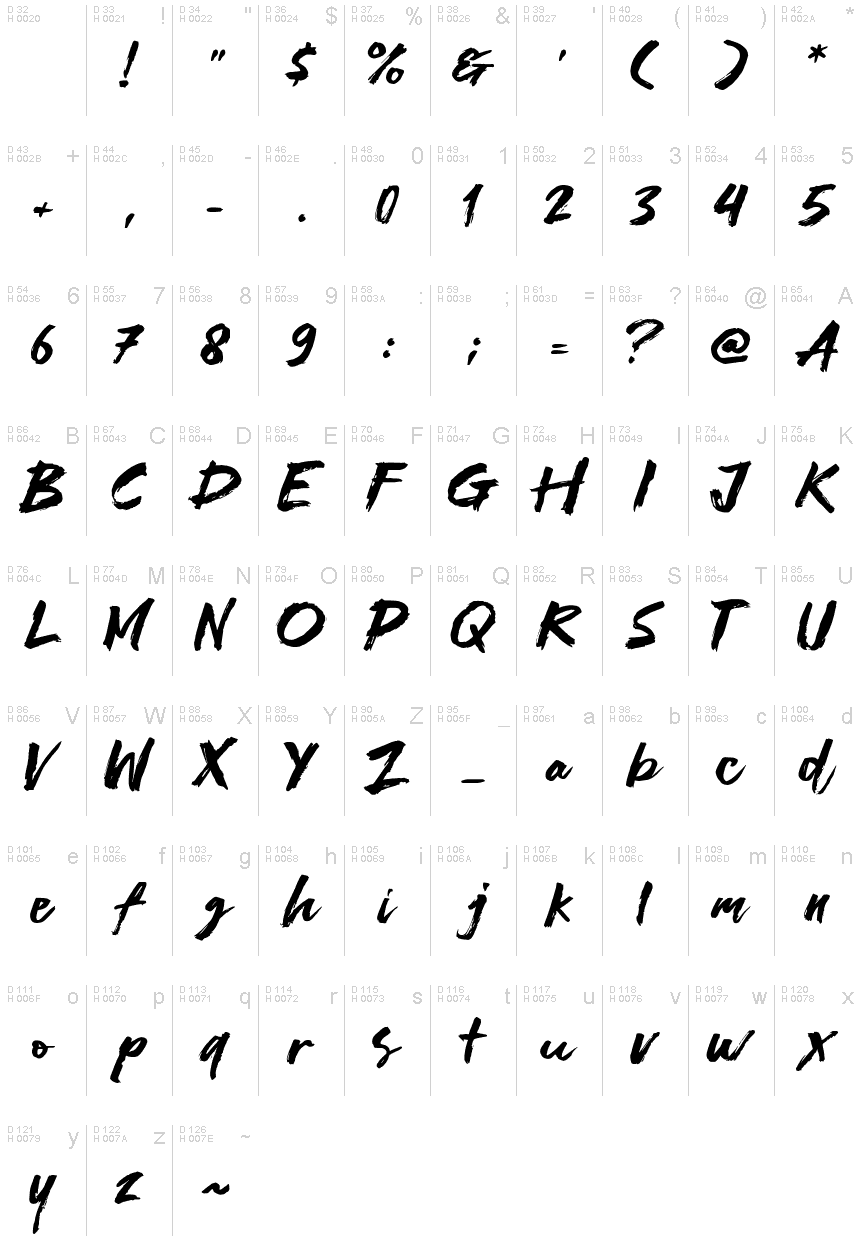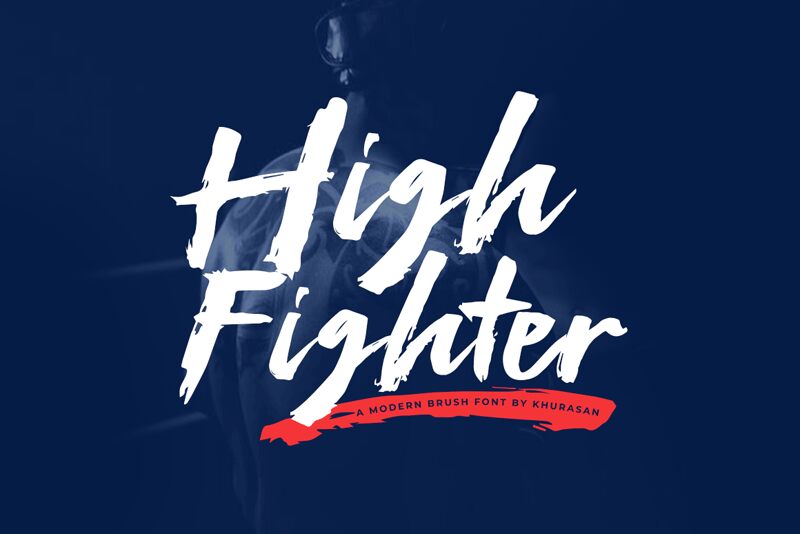
High Fighter
High Fighter is a bold and striking brush font designed by Khurasan. Its thick, expressive strokes lend themselves perfectly to headlines, logos, and branding materials for edgy and high-impact projects. With its strong, assertive style, High Fighter is ideal for designs that demand attention and make a statement. Whether you're creating posters for a music festival or designing merchandise for an extreme sports brand, this semi-bold font will help your message stand out from the crowd. So go ahead – unleash your creativity with High Fighter!